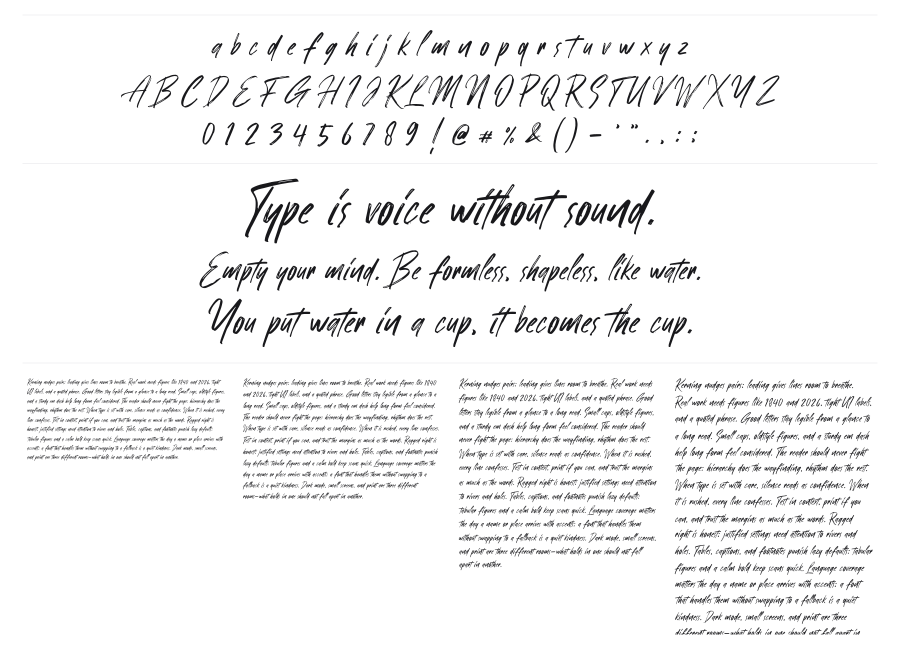
Guzttass
Guzttass is a raw brush script with visible bristle texture and ink-drag strokes that look genuinely hand-drawn rather than digitally polished. The high contrast between thick downstrokes and wispy hairlines gives it energy and momentum. At large sizes it reads as bold and authentic, making it a strong choice for labels, covers, or brand wordmarks that want handcrafted credibility.